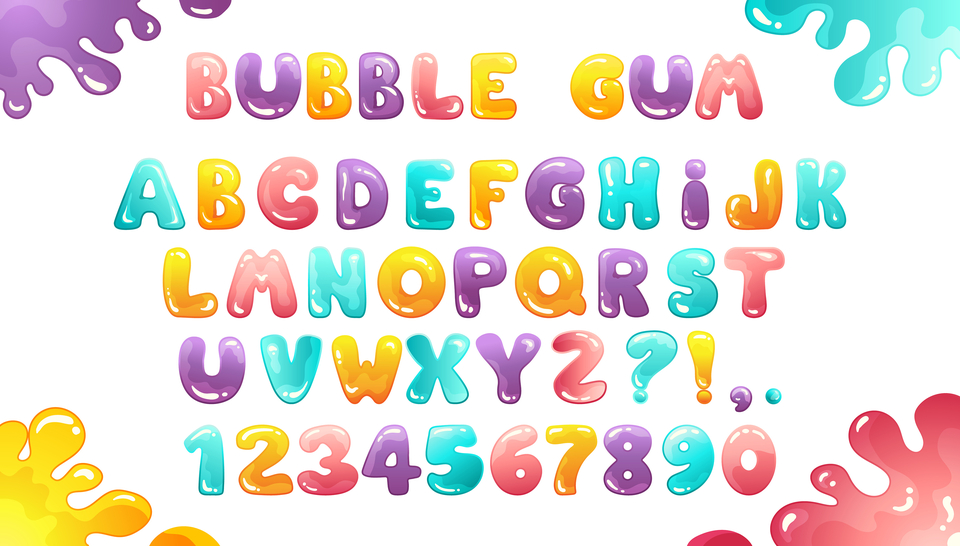
Bubble Gum Alphabet, Jelly Bear Letters, Sweet Candy Font, Vector EPS
This fun and colorful bubble gum alphabet vector. The set includes letters, numbers, and symbols with a playful, glossy texture that looks like sweet jelly bears. Perfect for kids' designs, party invitations, posters, and any project that needs a playful, candy-themed font.